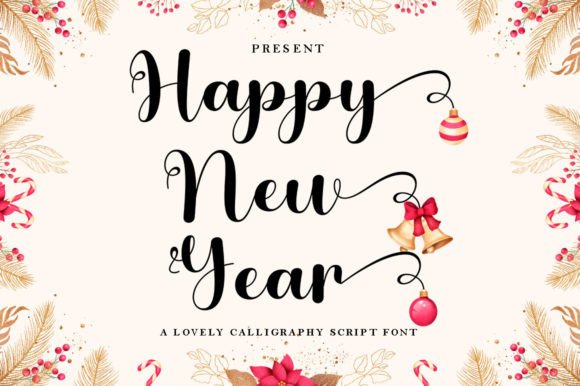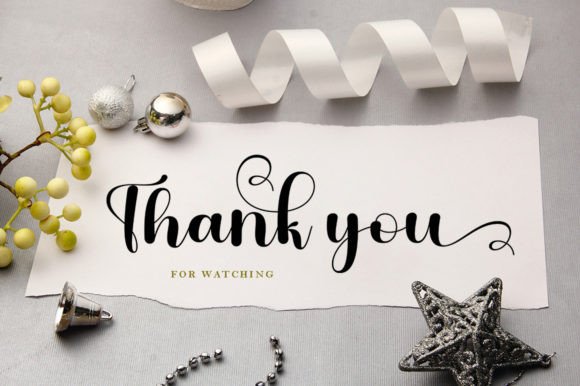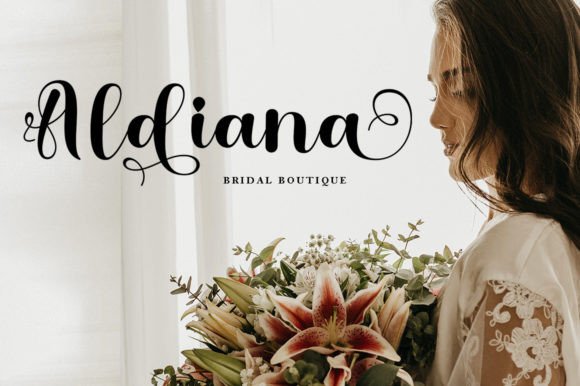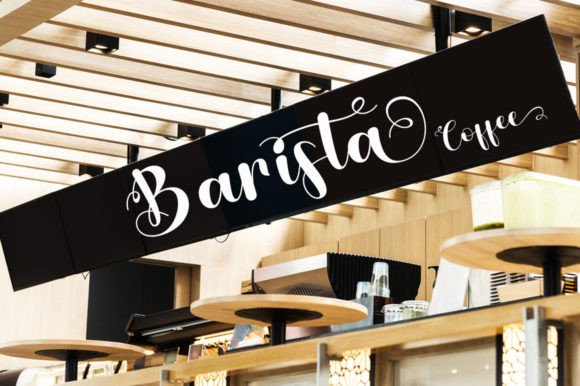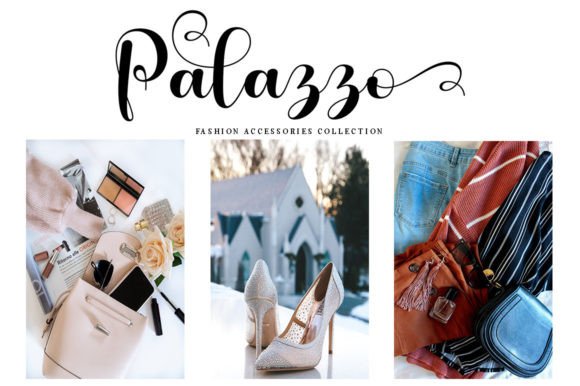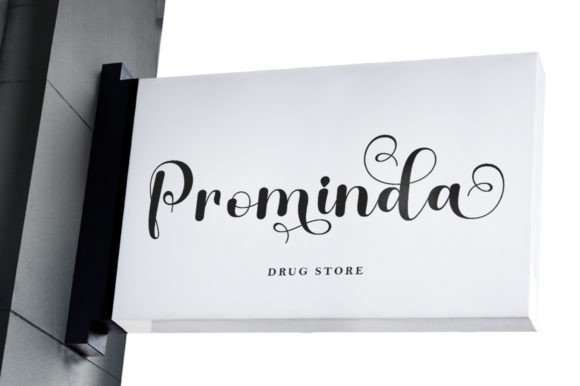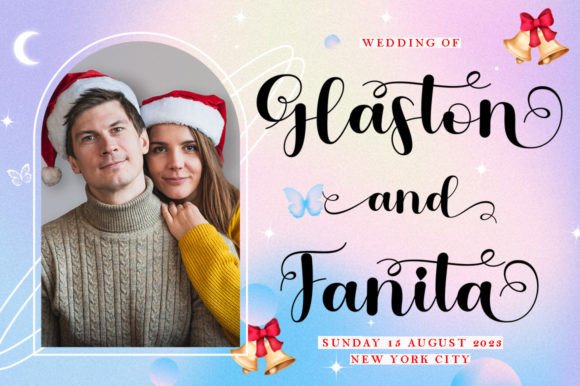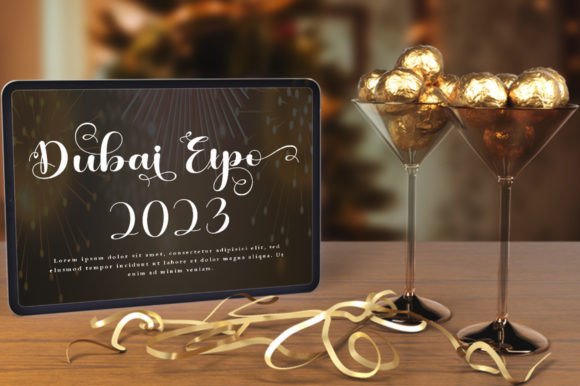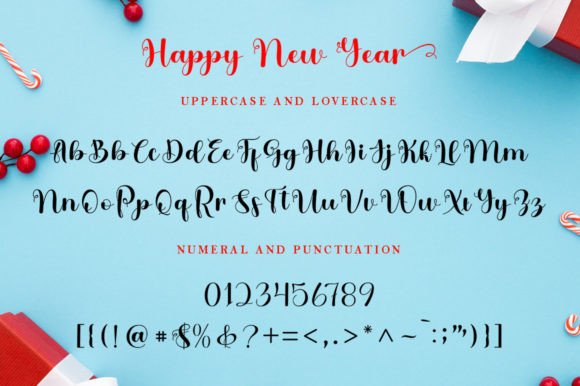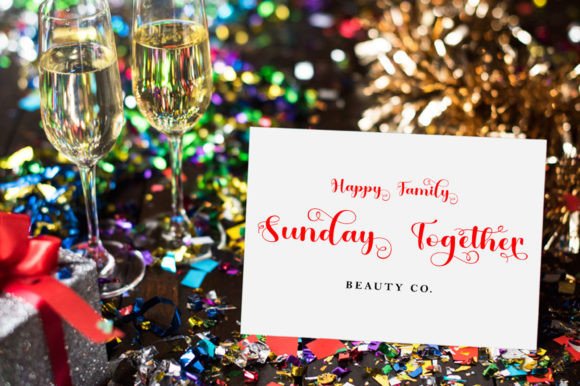
Happy New Year Font
About Happy New Year Font
Happy New Year is a beautiful and delicate handwritten font. Classy and modern, it’s perfect for logos, branding, invitations, stationery, wedding designs, social media posts, and more!